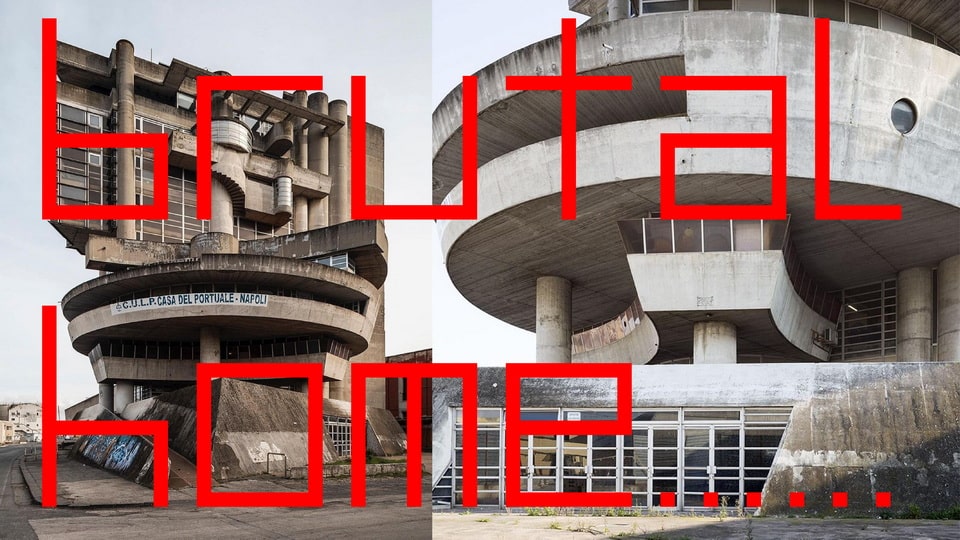
Download Brutalhome font, a brutal, modular, numeric variable typeface that draws its raw energy from the aesthetics of brutalist architecture: hard edges, heavy structures, and unapologetically rigid forms.
Designer: Christian Simone